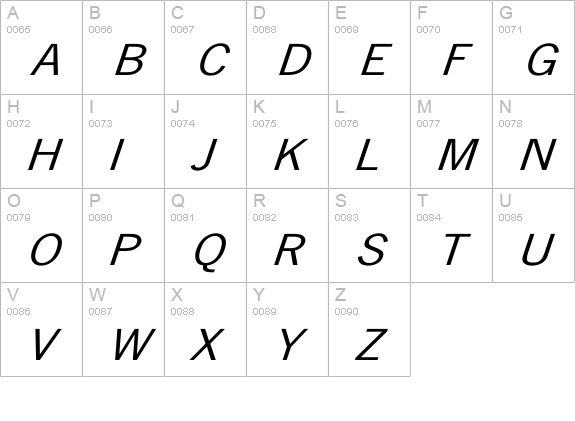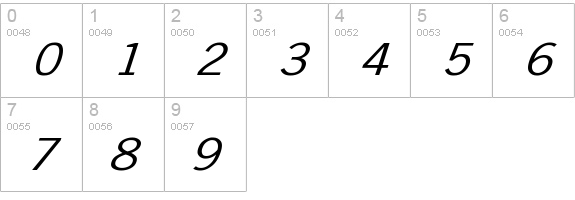
NewsGothic Wd Italic Font Details
NewsGothic Wd Italic is a distinctive, italic variant in the NewsGothic typeface family \xE2\x80\x94 well suited to design and typography projects.
Introducing NewsGothic Wd Italic font, a sleek and modern typeface that exudes sophistication and professionalism. With its elegant slanted design, this font is perfect for adding a touch of style to any project. Whether you're designing a magazine layout, creating a website, or crafting a sleek logo, NewsGothic Wd Italic will elevate your work to the next level. The best part? NewsGothic Wd Italic font is available for free download at FontsMarket.com! Now you can access this versatile and eye-catching font without breaking the bank. Don't miss out on this fantastic opportunity to enhance your design projects with NewsGothic Wd Italic font. Download it today and take your creations to new heights of sophistication and elegance.